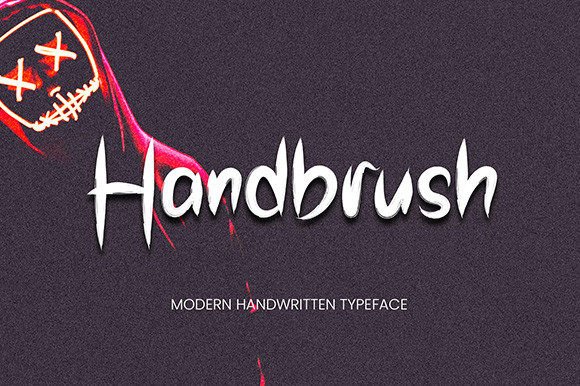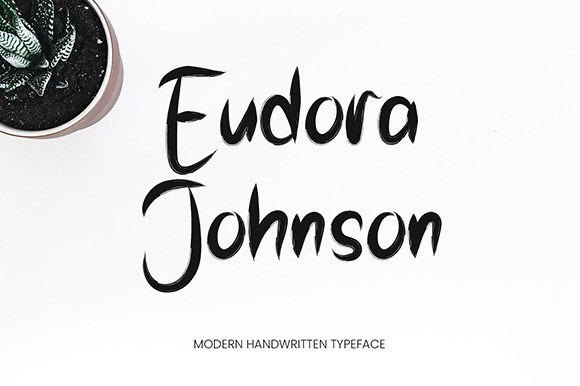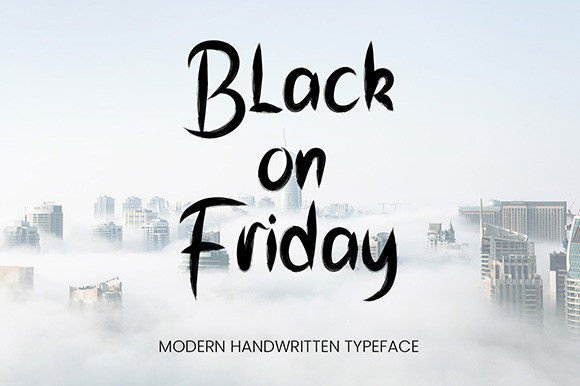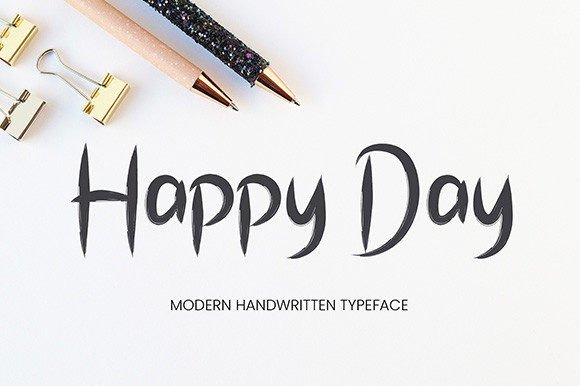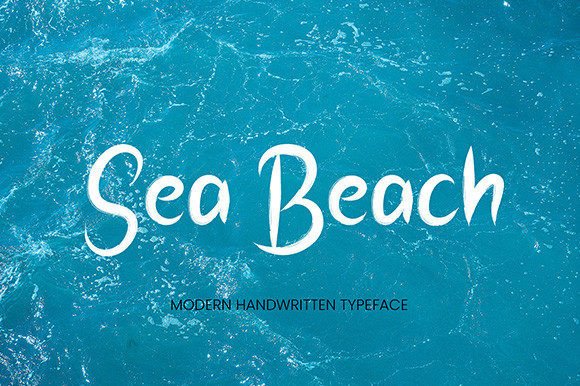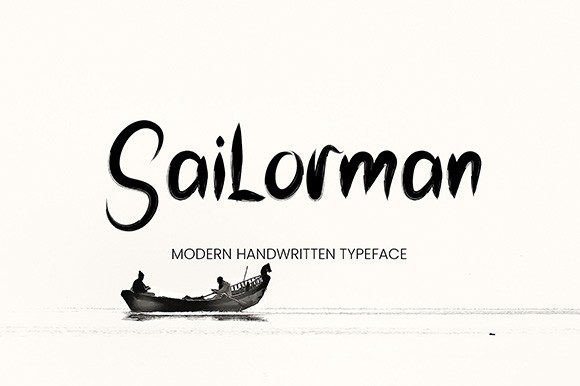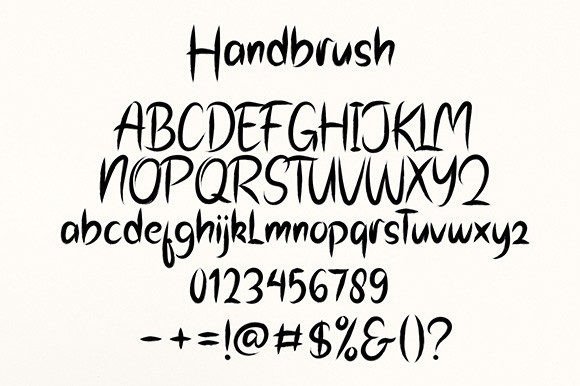
Handbrush Font
A Charming and Elegant Handwritten Typeface
Handbrush Font is a charming and elegant handwritten typeface designed to add a personal touch to your designs. With its beautiful flowing strokes and well-balanced characters, this font ensures that your projects feel both unique and refined. Whether you’re working on wedding invitations, thank-you cards, logos, or social media content, the Handbrush Font provides the perfect balance of creativity and readability, making it suitable for a wide range of design applications. Its artistic handwriting style adds a timeless and personalized flair to any project.
Perfect for Wedding Invitations and Special Occasions
For wedding invitations and special occasion stationery, the Handbrush Font is an ideal choice. Whether you’re designing RSVP cards, save-the-dates, or thank-you notes, this font adds an elegant and romantic touch to your designs. Its flowing and graceful strokes create a sense of refinement and beauty, making it perfect for weddings, anniversaries, and other meaningful events. The Handbrush Font will help you design timeless and memorable stationery that sets the perfect tone for your special day.
Great for Logos and Branding
The Handbrush Font is also excellent for logos and branding. Whether you’re creating a personal brand logo, business identity, or product packaging, this font adds a charming, personalized feel that will make your brand stand out. Its elegant handwritten design ensures that your logo feels memorable and approachable while still maintaining a professional and stylish appearance. The Handbrush Font is ideal for businesses in industries such as fashion, lifestyle, and beauty, where personalized and distinctive branding is essential.
Ideal for Greeting Cards and Social Media
For greeting cards and social media posts, the Handbrush Font adds a friendly, personal touch that will capture attention. Whether you’re designing birthday cards, holiday greetings, or motivational quotes, this font helps you create visually appealing content that feels authentic and engaging. Its handwritten style makes it perfect for customized designs, whether you’re creating Instagram posts, Pinterest pins, or Facebook ads. The Handbrush Font ensures that your digital content stands out with a unique and charming look.
Perfect for Business Cards and Marketing Materials
For business cards and marketing materials, the Handbrush Font ensures your designs look elegant and professional while still conveying a personalized touch. Whether you’re designing business cards, brochures, or product labels, this font adds a distinctive, artistic flair that helps your materials stand out. Its refined strokes ensure your text remains legible and clean, while the flowing design adds an extra level of style and sophistication to your branding.
Versatile, Legible, and Beautiful
Despite its charming handwritten design, the Handbrush Font remains legible and easy to use. Its well-spaced characters and consistent strokes ensure your text remains clear and readable, even for longer passages or smaller sizes. Whether you’re using it for headlines, captions, or body text, this font strikes the perfect balance between creativity and readability, making it ideal for a wide range of design applications, from print to digital media.
The Handbrush Font is easy to use and integrates smoothly into most design software. Whether you’re working on wedding invitations, logos, greeting cards, or social media graphics, this font ensures your designs look polished and professional while maintaining a personalized touch. Its versatility makes it perfect for both print and digital media, allowing you to use it across various projects with ease.
Add Charm and Elegance to Your Designs with Handbrush Font
If you’re looking for a charming, elegant handwritten font that adds a personalized and refined touch to your designs, the Handbrush Font is the perfect choice. Whether you’re designing wedding invitations, logos, greeting cards, or social media posts, this font helps you create memorable, timeless designs that stand out. Let the Handbrush Font add a personal touch to your creative projects and leave a lasting impression with its charm and elegance.